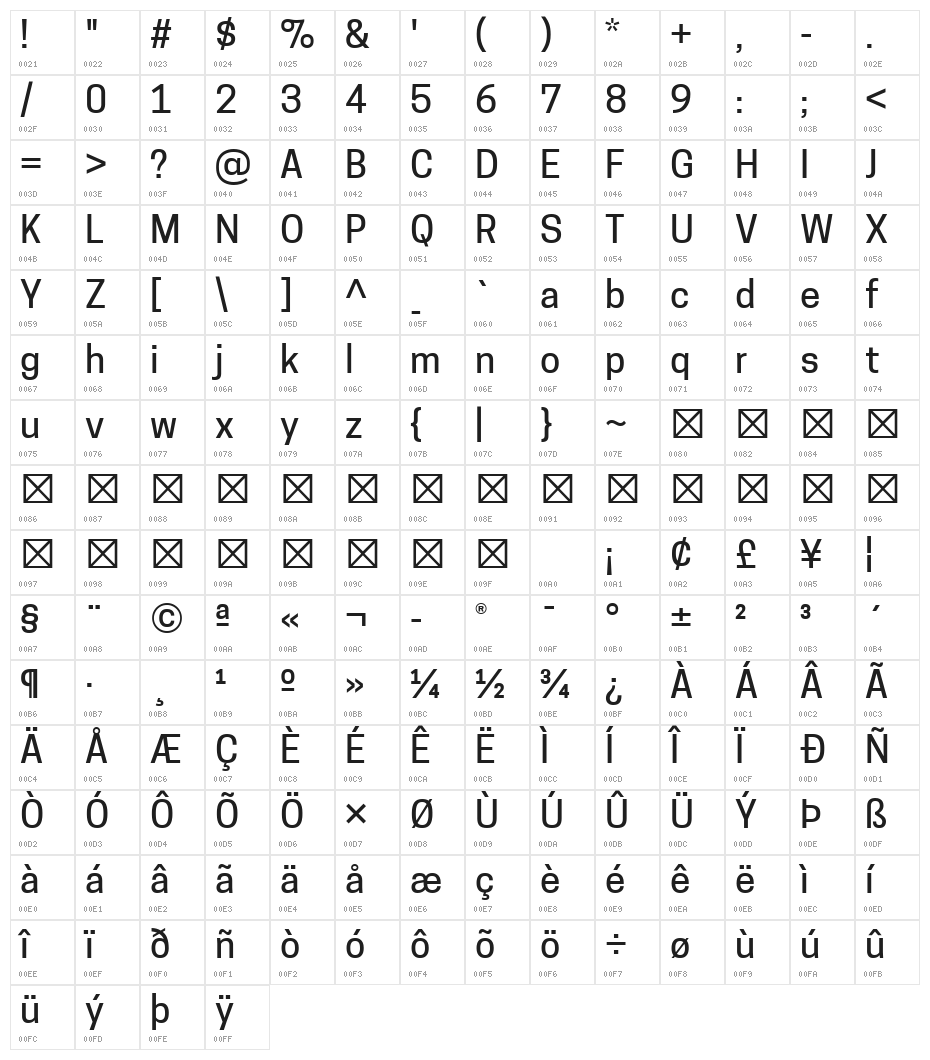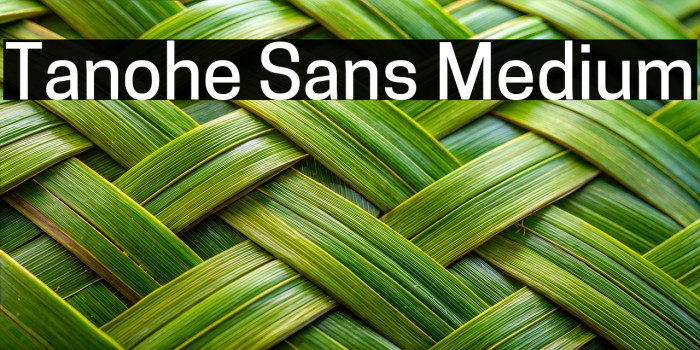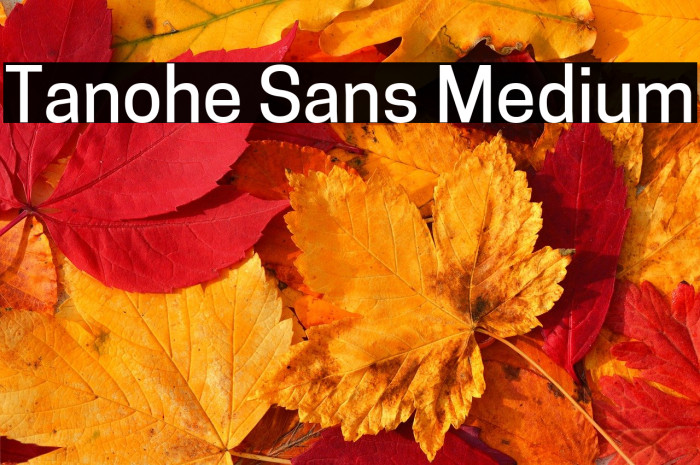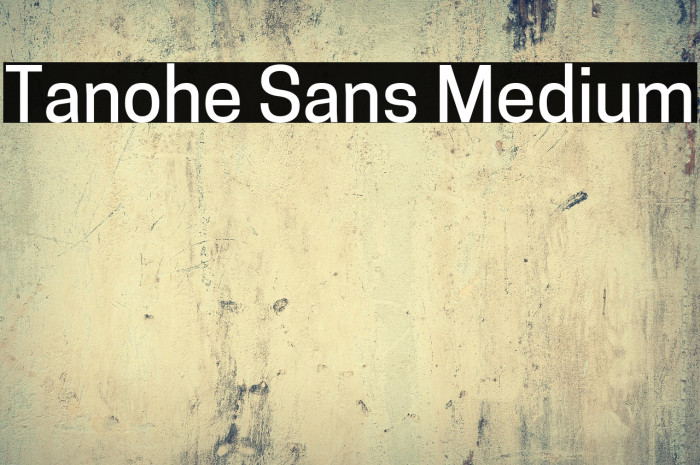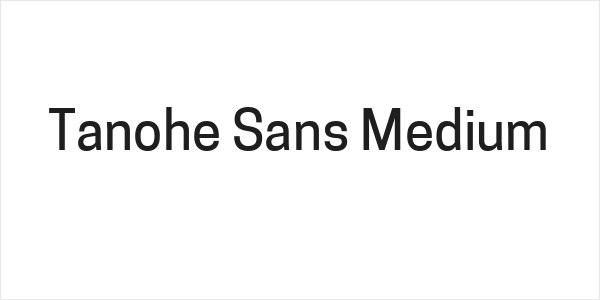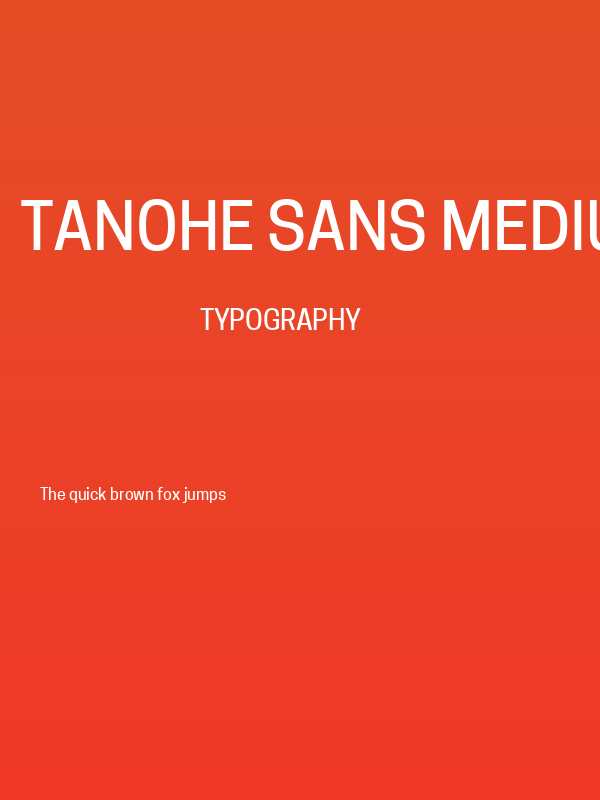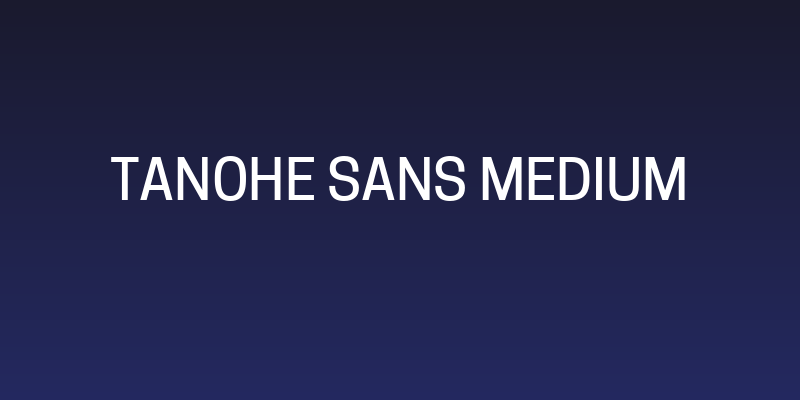
Tanohe Sans Medium Font
Tanohe Sans Medium Description
This font exhibits a clean and modern sans-serif style, characterized by its straightforward and geometric letterforms. The uppercase and lowercase letters maintain a consistent height and width, providing a uniform appearance. The numerals are clear and easily distinguishable, making them suitable for various applications. The special characters are well-defined, ensuring readability and versatility. Overall, the font's simplicity and clarity make it ideal for both digital and print media, offering a professional and contemporary look.
Proposed ProjectsIdeal for corporate branding, website design, digital media, and print materials.